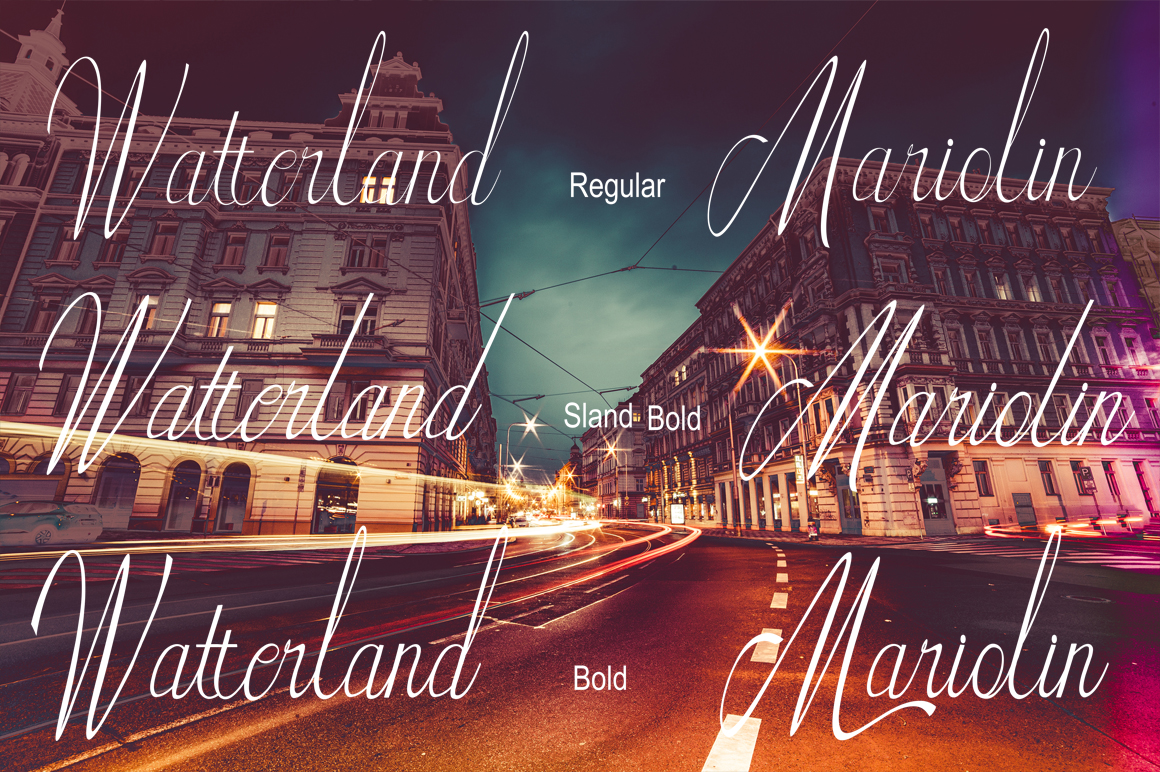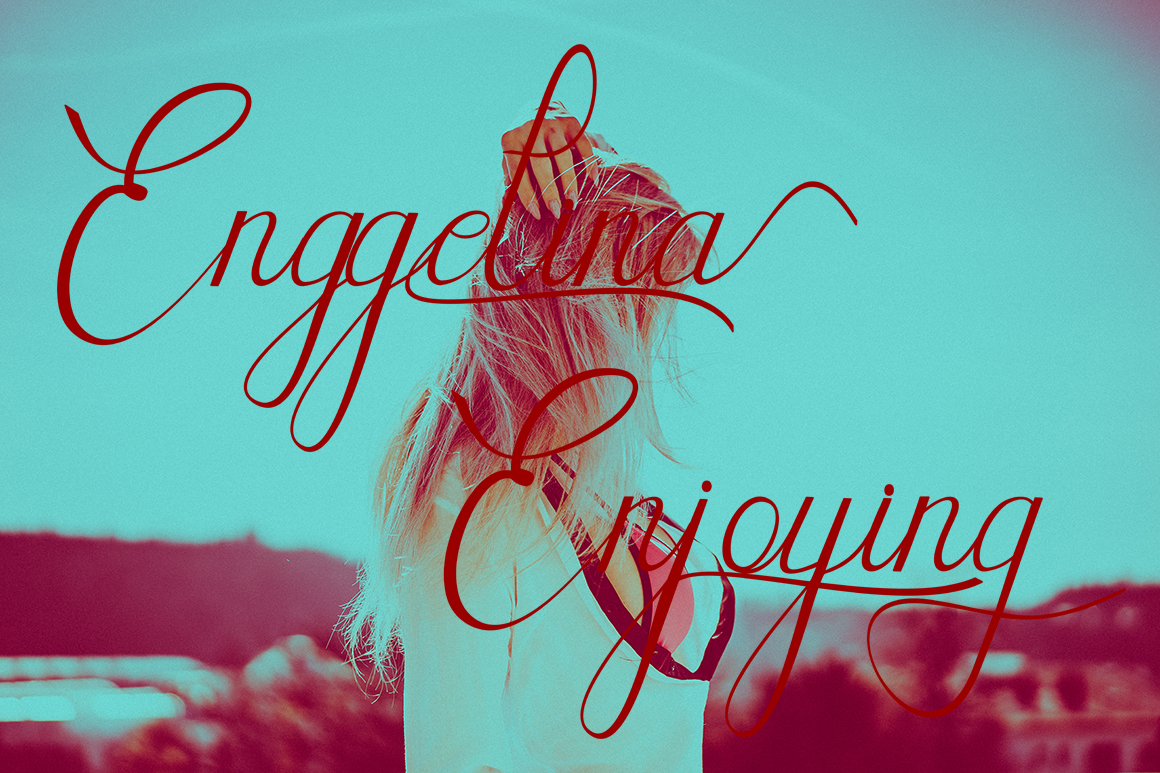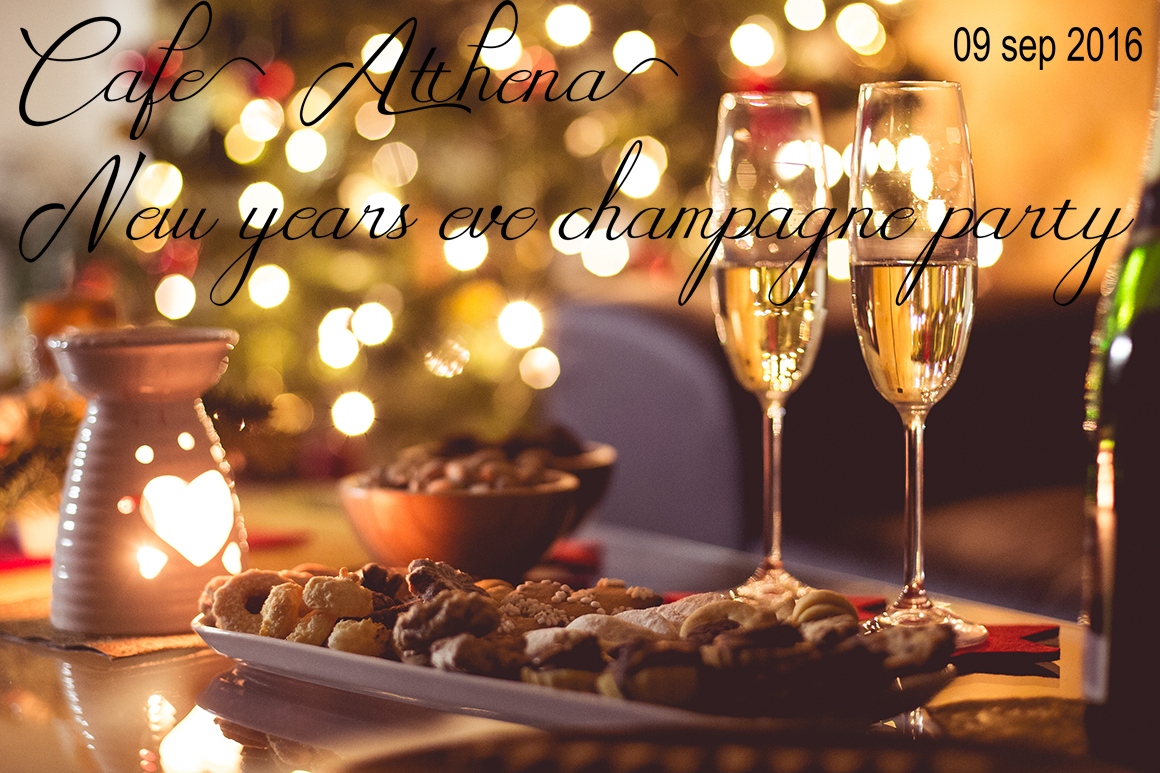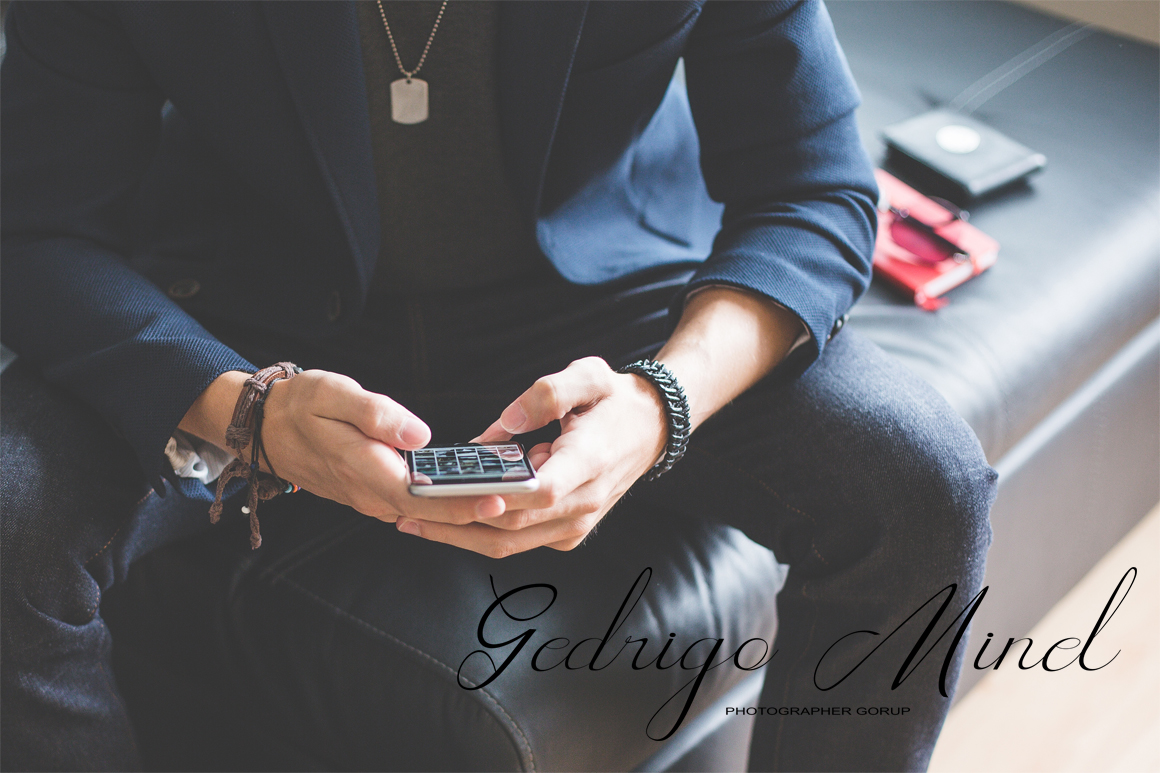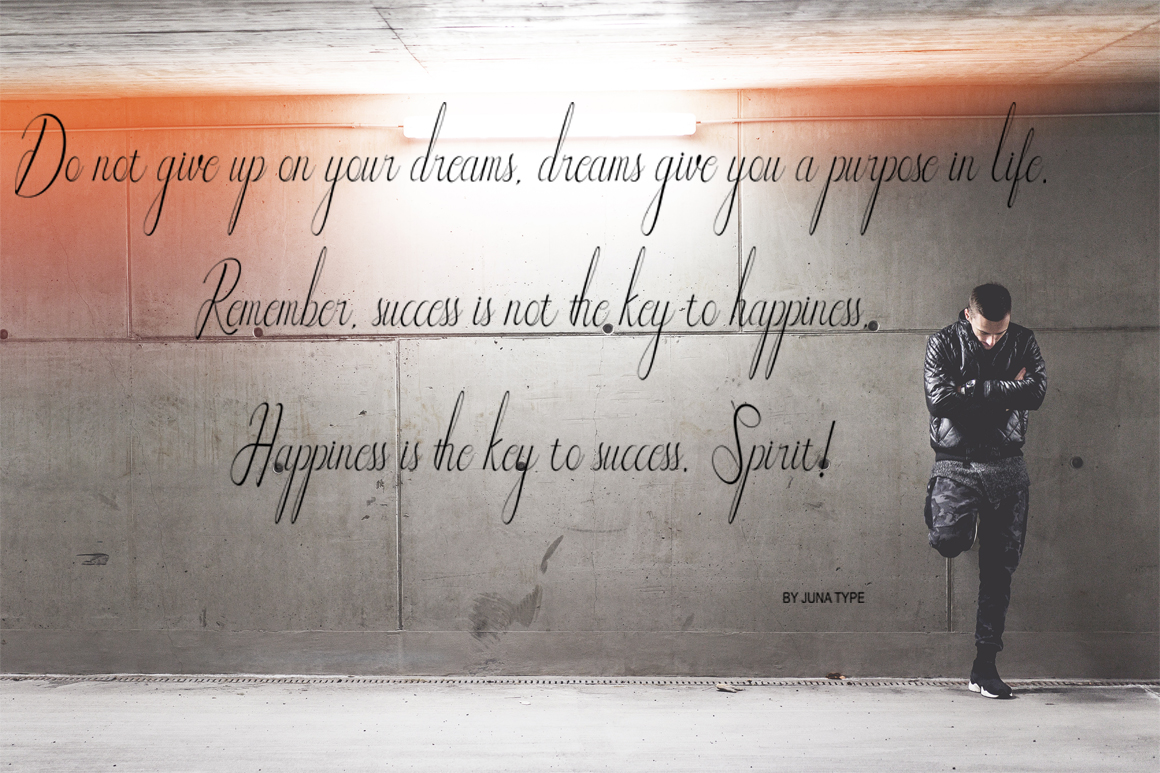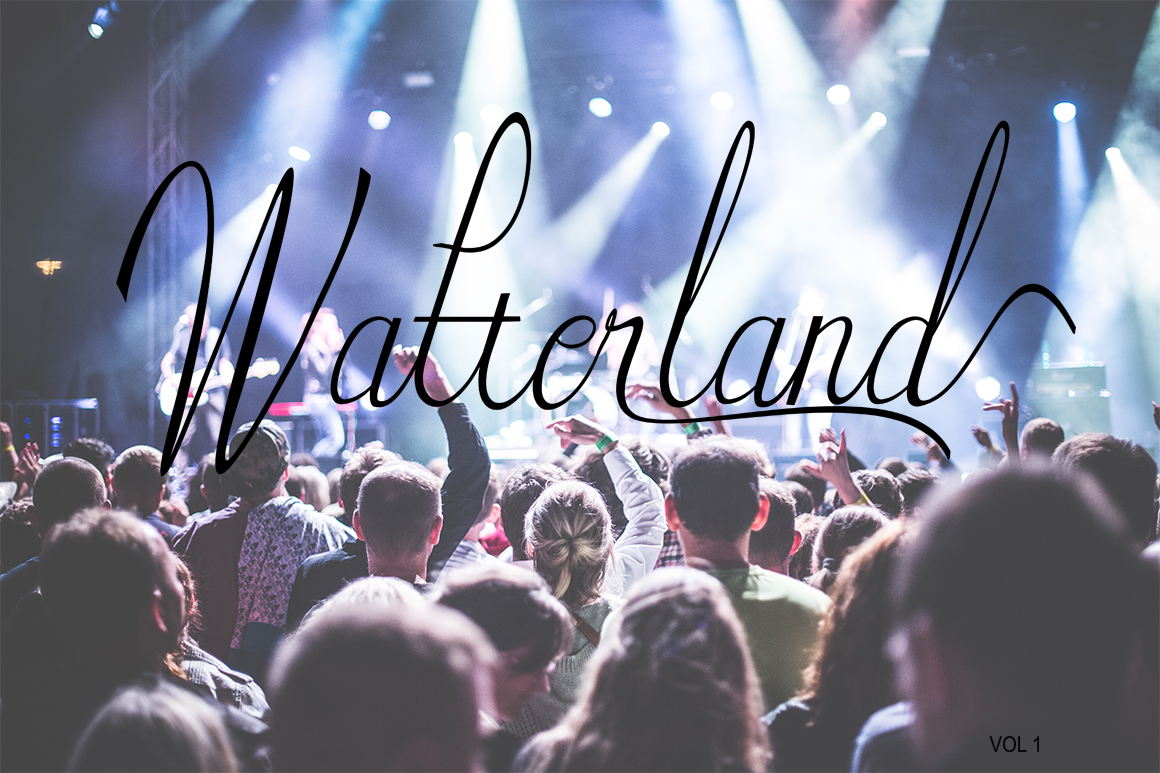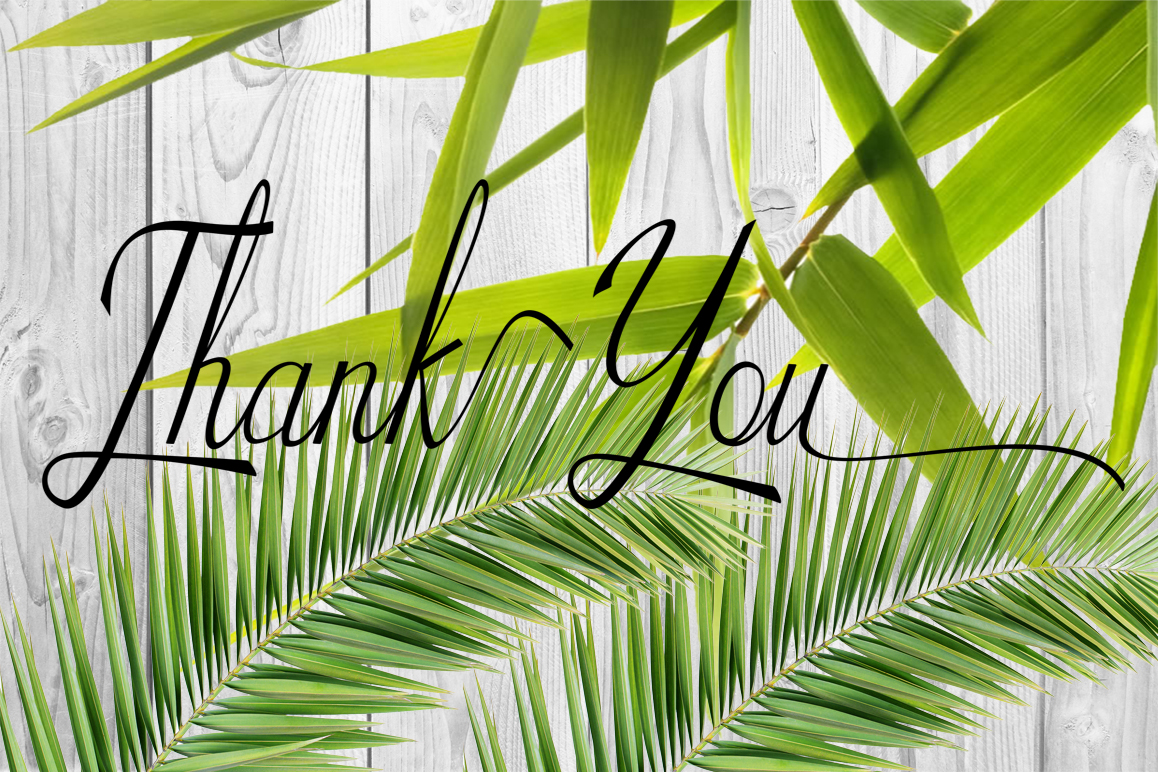
Watterland Font
About Watterland Font
Watterland is a handwritten script font. It springs from classical roots. This formal typeface has an elegant touch, which makes it great for many different types of designs.